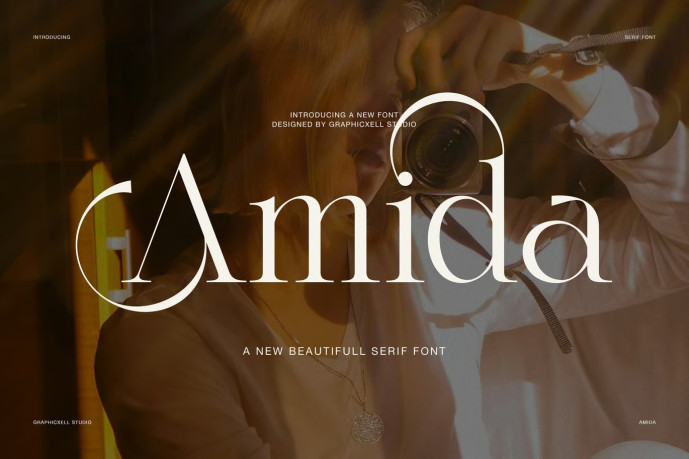
Amida Elegant Display Serif Font
Amida Elegant Display Serif is a refined and expressive serif typeface designed for modern luxury brands and editorial design. It combines high-contrast strokes with soft curves, creating a strong visual rhythm that is both elegant and artistic. As such, Amida stands out in fashion layouts, magazine headlines, and high-end identity systems.
Furthermore, the typeface presents a balanced blend of classic serif structure and modern style. The letters are tall, elegant, and carefully crafted to convey a sophisticated tone. In addition, the smooth transitions between thick and thin strokes lend each word an air of grace and quality.
Furthermore, Amida includes decorative alternatives and elegant ligatures. These features help designers create unique logos effortlessly. Consequently, it becomes a powerful choice for branding projects that demand exclusivity and personality.
Therefore, Amida works perfectly in many areas of design. It adapts well to both print and digital use. For example, it can enhance fashion editorials, boutique branding, wedding invitations, luxury packaging, and high-end social media posts.